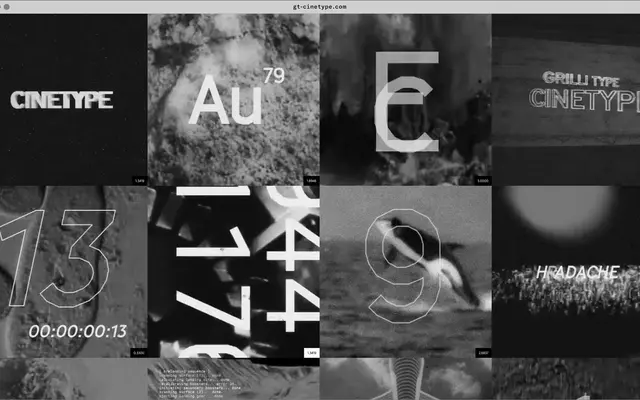
GT Cinetype
Grilli Type · Mauro Paolozzi, Rafael Koch · 2015
GT Cinetype specimen from Grilli Type
A curveless sans by Mauro Paolozzi and Rafael Koch that revives the laser-engraved subtitling alphabet of cinema.
A seven-style family by Mauro Paolozzi and Rafael Koch, released in 2015 and built on a design engineered for a cinema subtitling machine. Grilli explain that the laser used to erase the film's colour layer could only move in straight lines, so Cinetype contains no curves. Available across Light, Regular and Bold with italics and a Mono cut, it suits motion captions, cinema-leaning identities and any design that wants the texture of laser-cut text.
Based on a cinema subtitling machine that used a laser to erase the colour layer of the film. Because the laser only moved in straight lines, the typeface contains no curves.